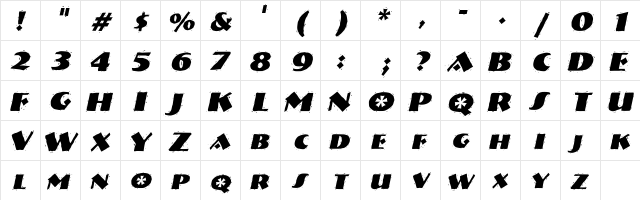
Natividad Italic
Design Context for Natividad Typeface
Natividad is a composed and adaptable typeface that performs quietly and consistently across a wide range of design contexts. The slanted form adds forward momentum and visual energy.
Pro Tip: Try Natividad for annotation and caption copy alongside an upright companion — the contrast in angle creates a dynamic but ordered typographic system.